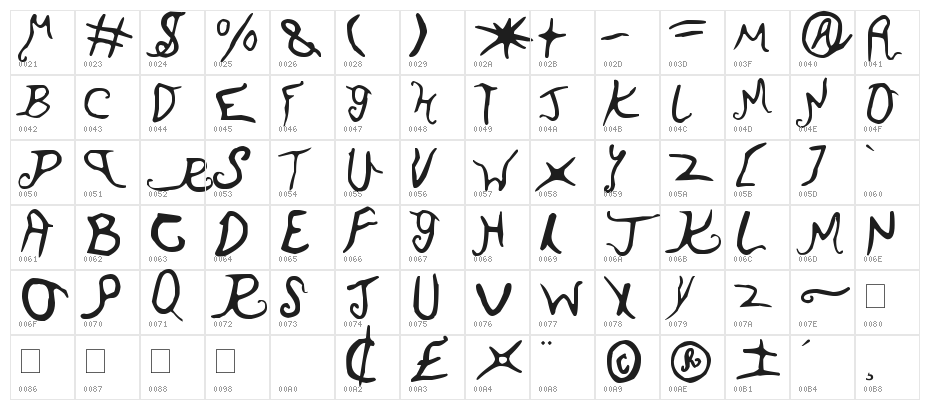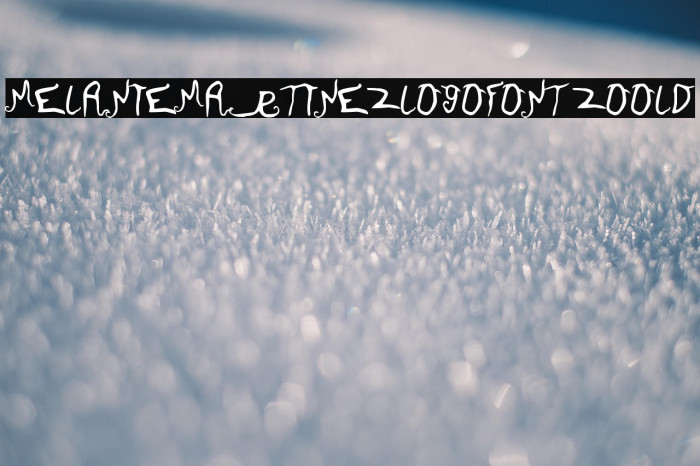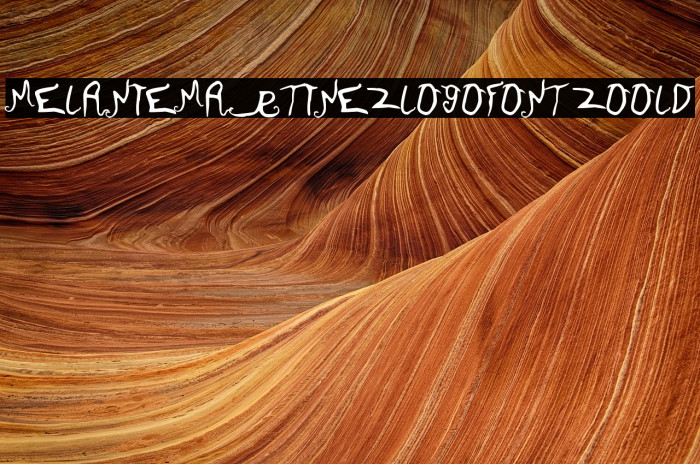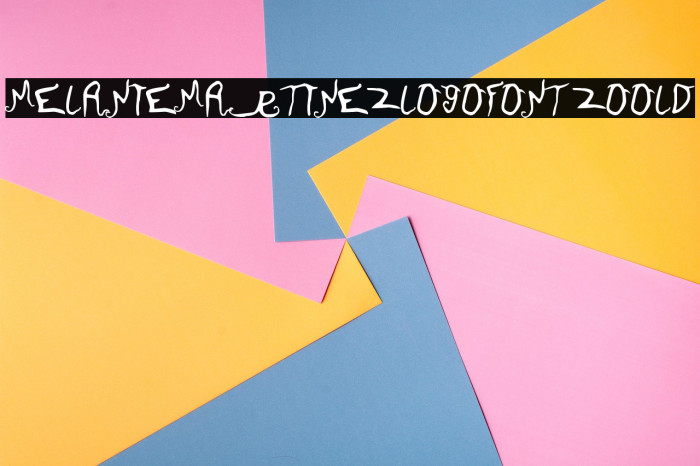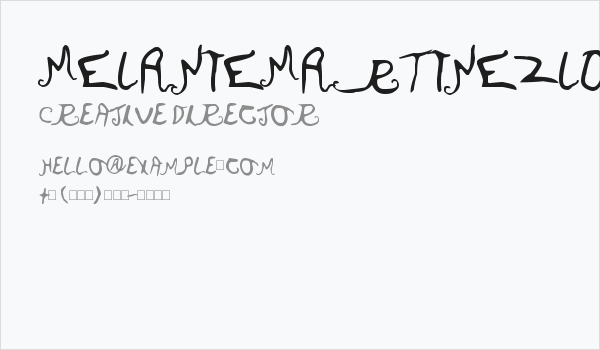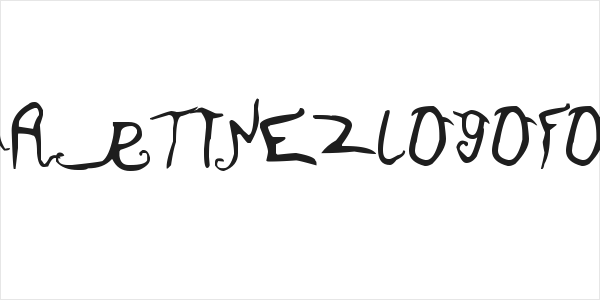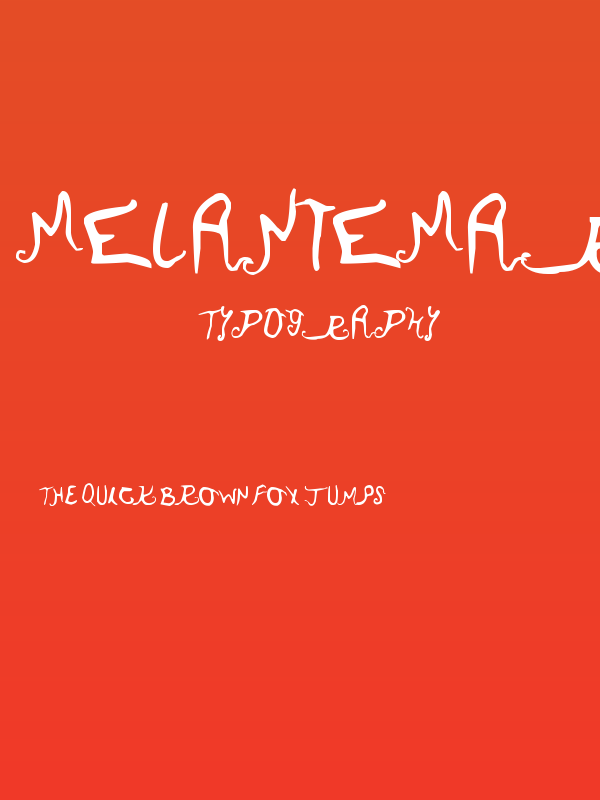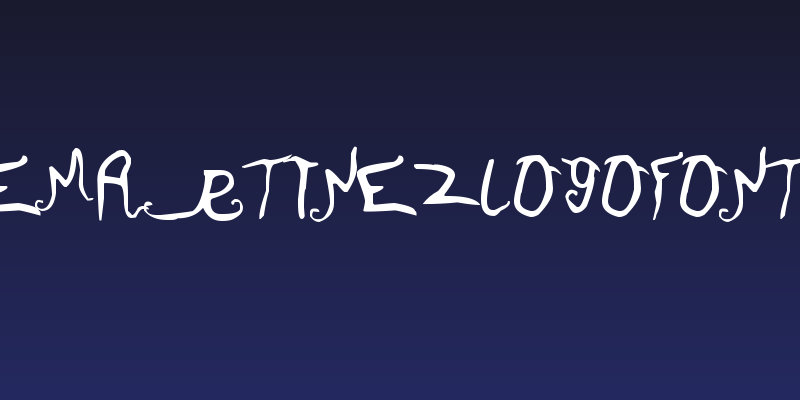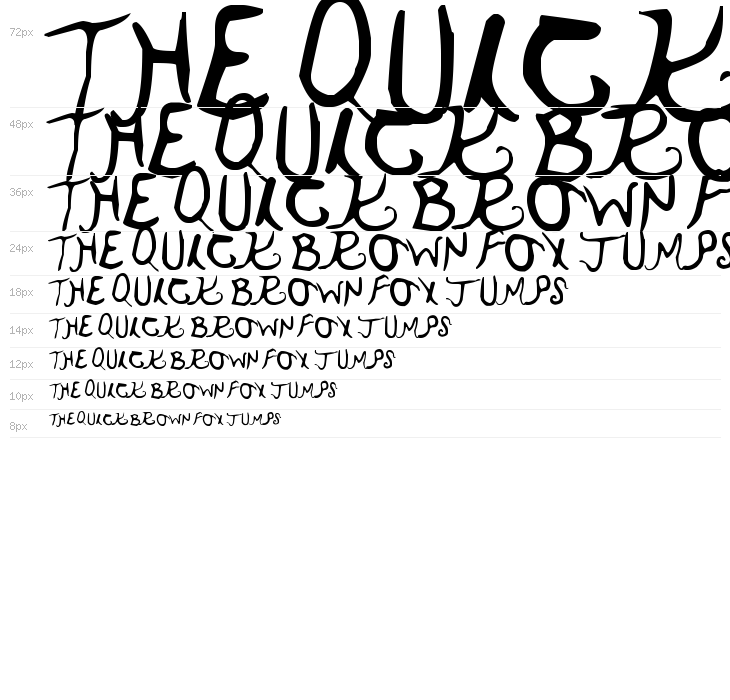
MELANIEMARTINEZLOGOFONT2 ZOOLD Font
MELANIEMARTINEZLOGOFONT2 ZOOLD Description
This font features a whimsical and artistic style, characterized by its fluid and irregular strokes. Each character appears hand-drawn, with varying thickness that adds a dynamic and playful feel. The uppercase and lowercase letters maintain a consistent style, with unique flourishes and curves that give the font a distinctive personality. The numbers and special characters are equally expressive, fitting seamlessly with the overall design. This font's creative and unconventional appearance makes it ideal for projects that require a touch of individuality and flair.
| Proposed Projects | Ideal for artistic projects, children's book covers, creative branding, and unique event invitations. |